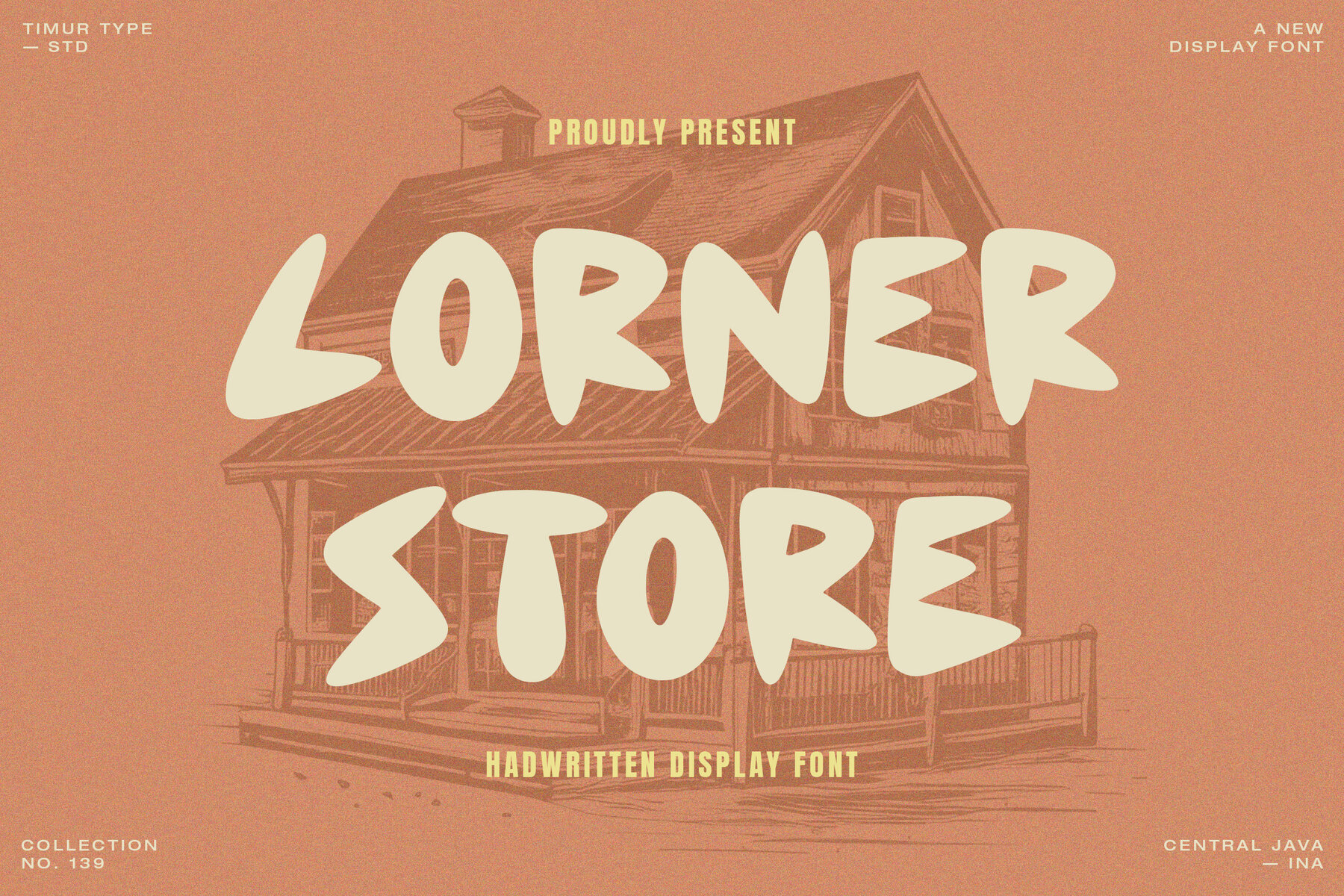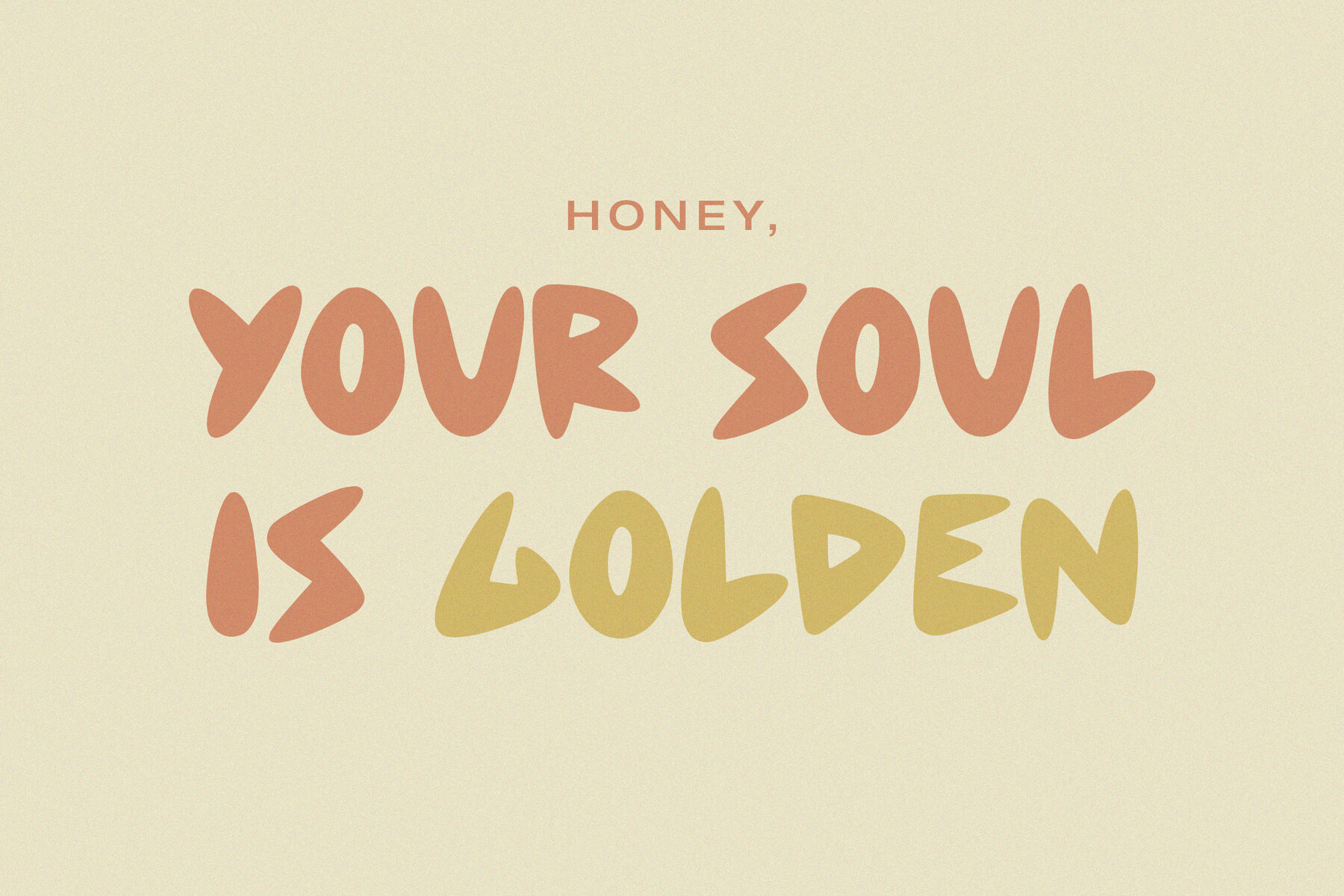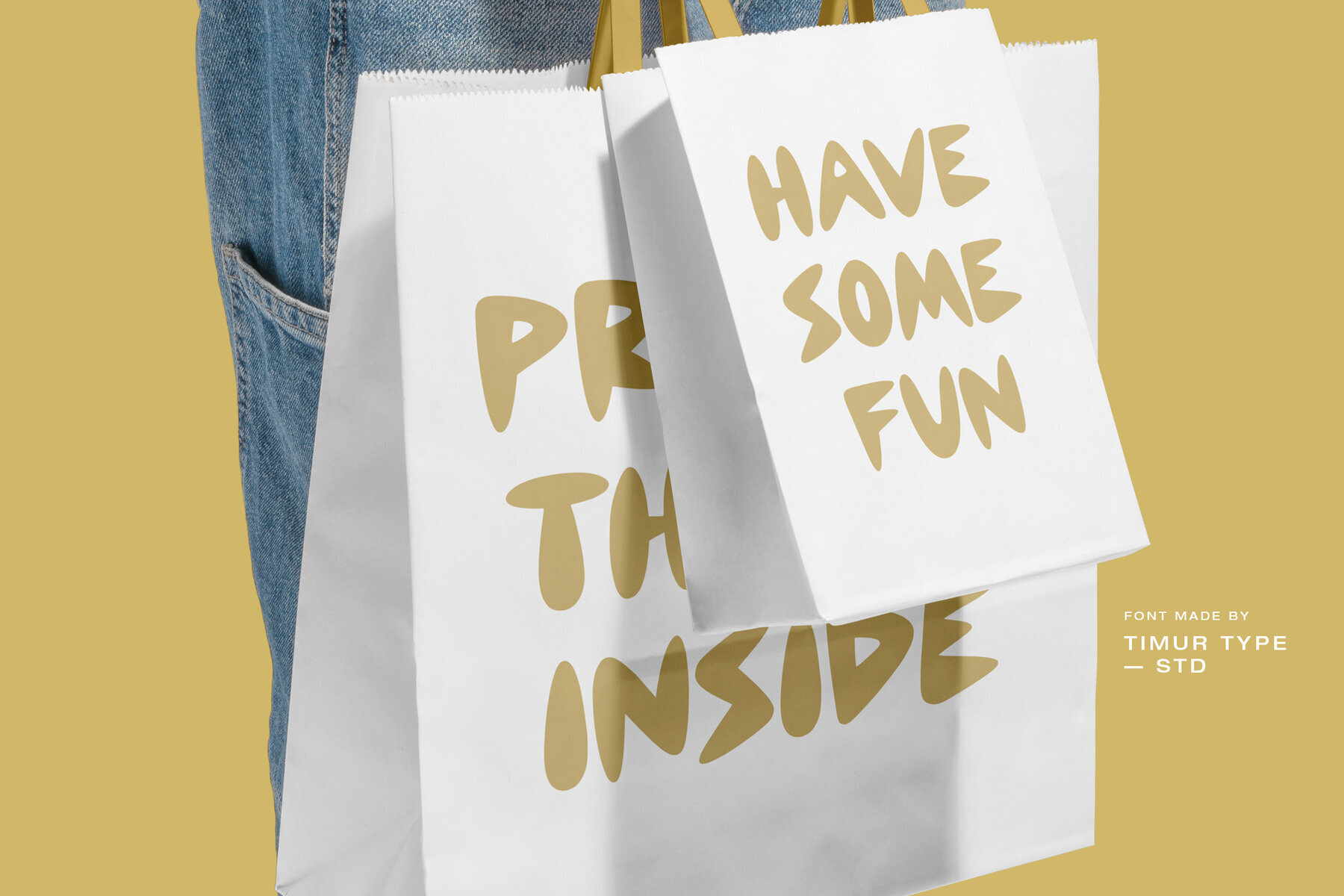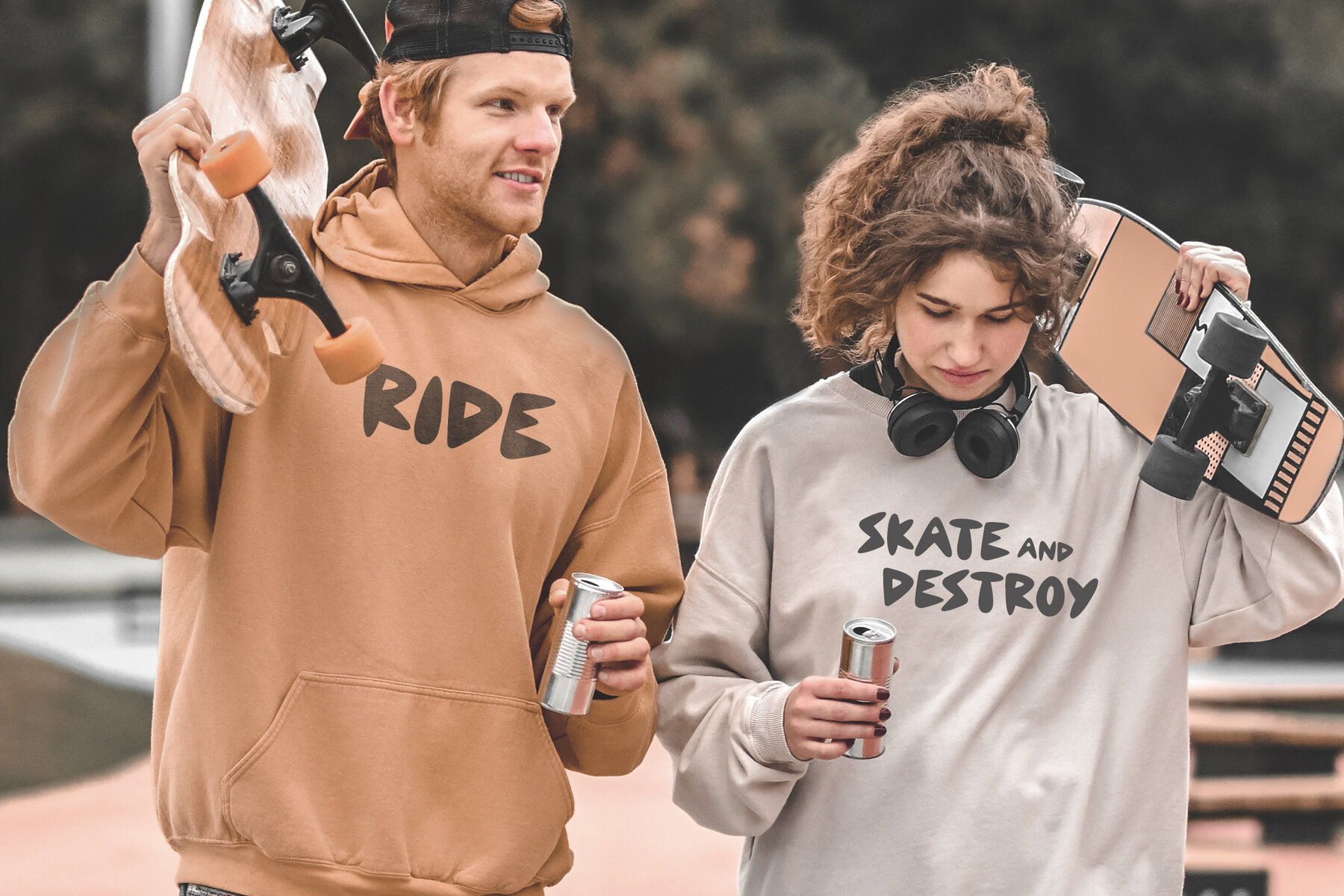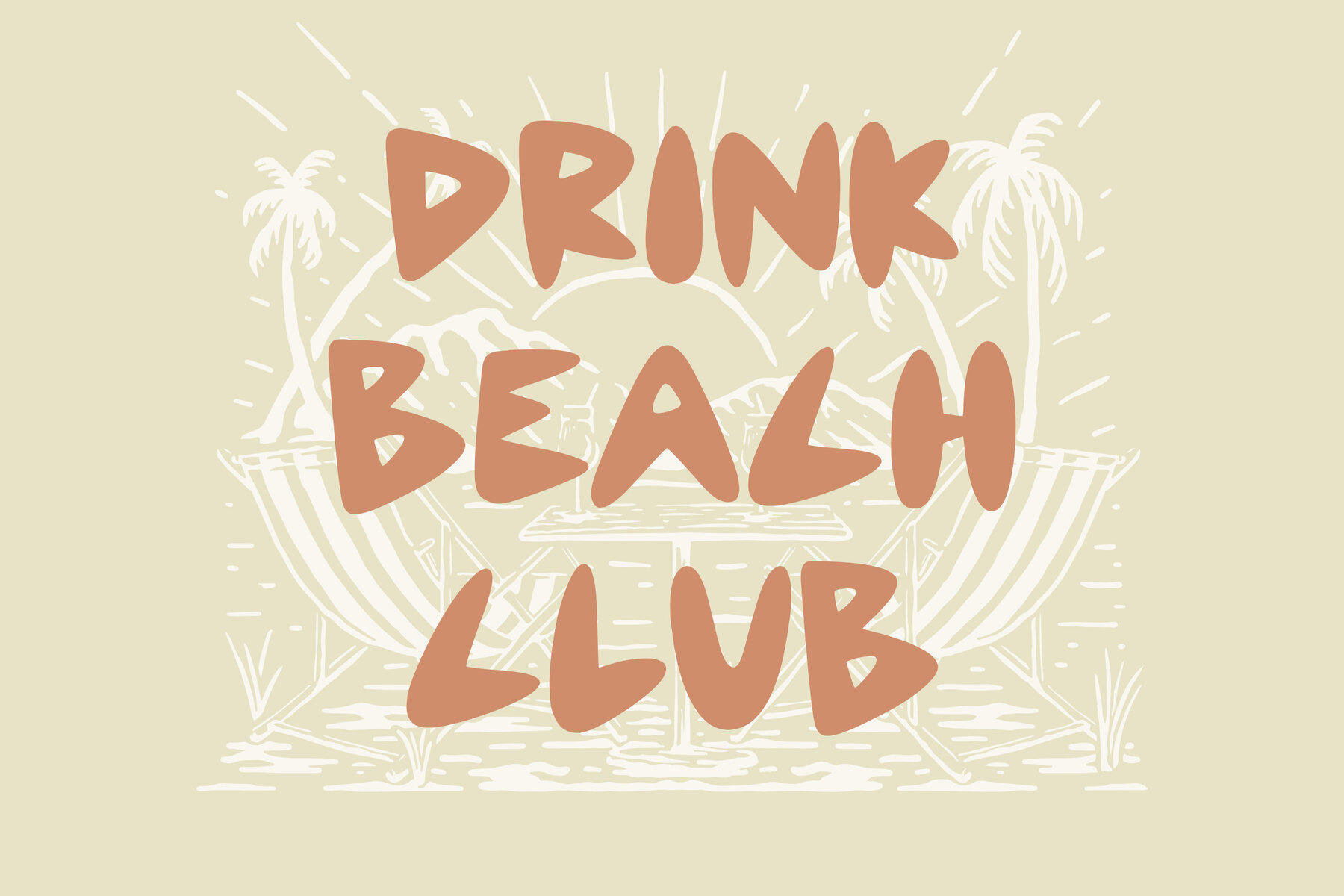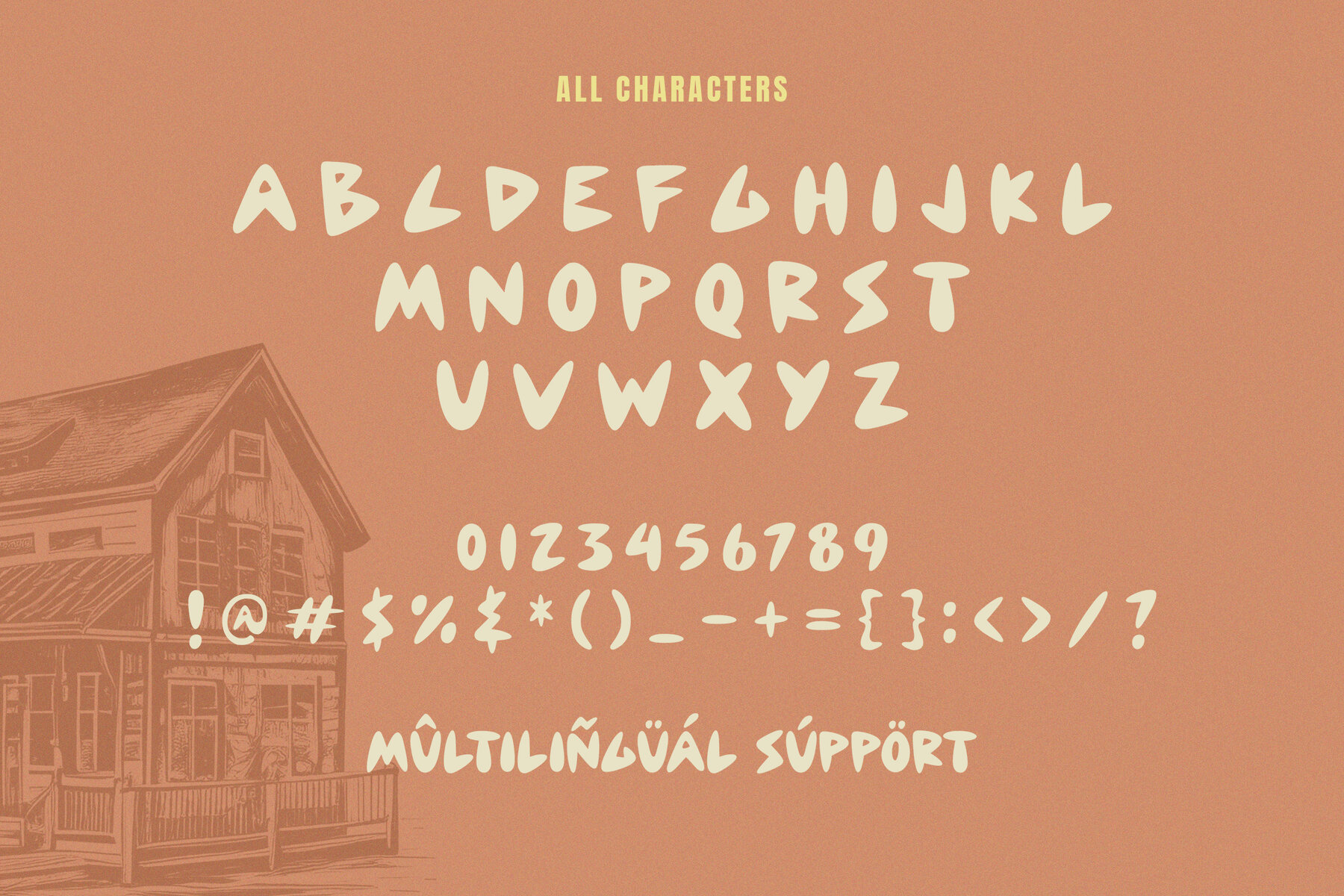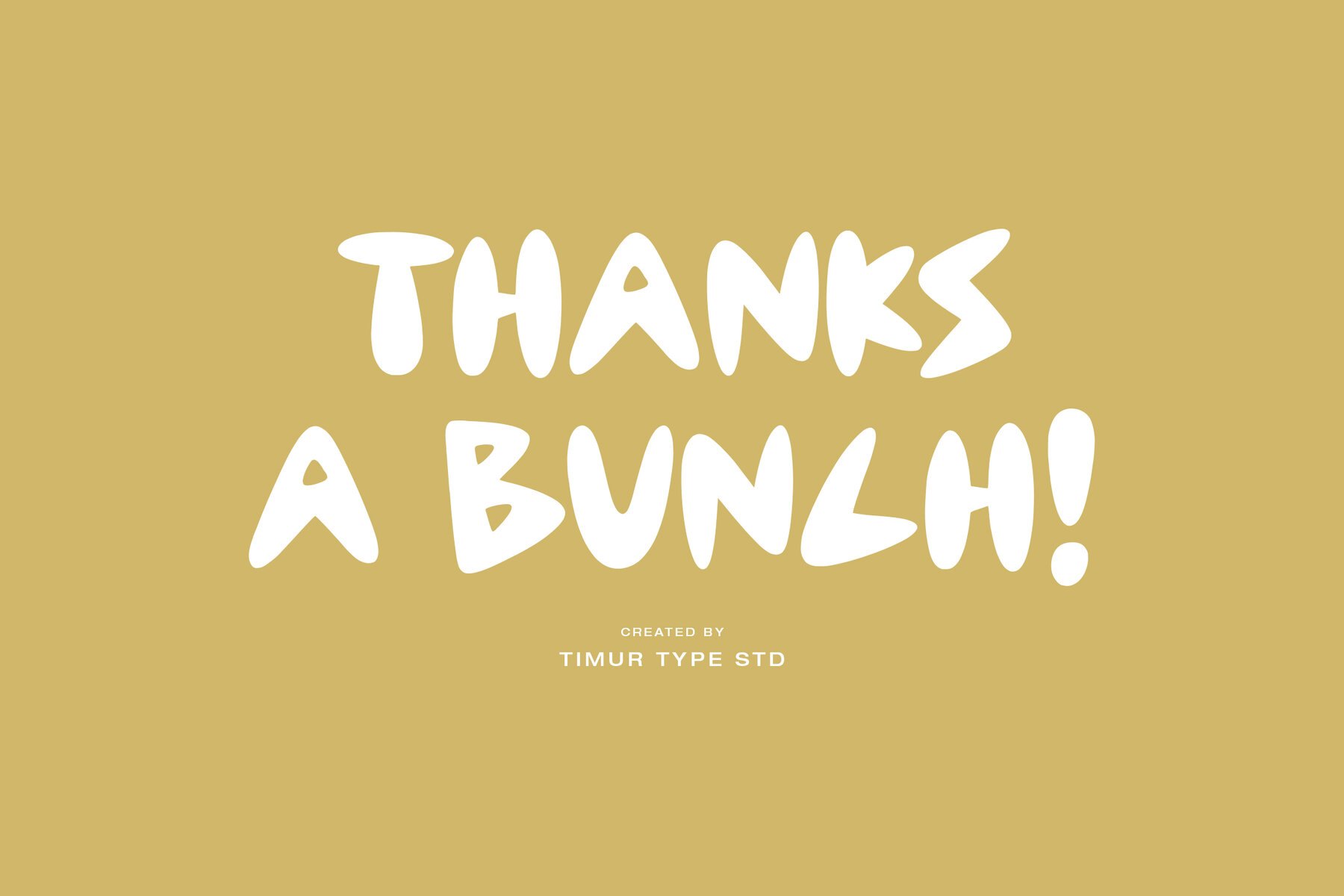
Corner Store
Introducing a beautiful collection of handwritten display fonts, curated to add an artistic touch to your projects. These carefully crafted fonts are perfect for creating stunning invitations, posters, signage, or even a dazzling website. Designed with swooping strokes, subtle flourishes, and intricate details, they capture the essence of any project, giving your designs a unique and captivating look.
The Corner Store font offers full multilingual support, including a complete set of standard alphabet and punctuation. Whether you're working on personal or commercial work, this font provides the perfect tools to make your designs pop with beauty and sophistication.